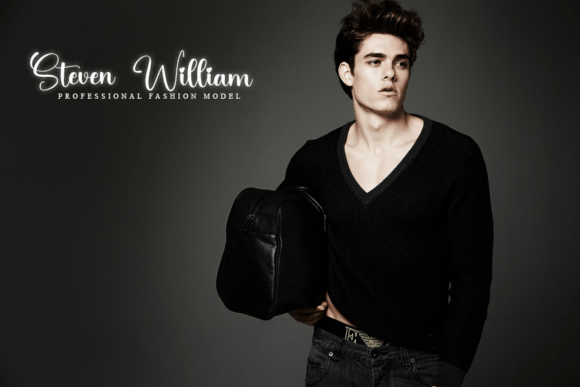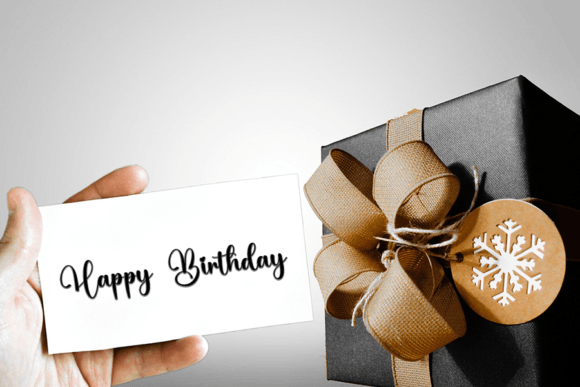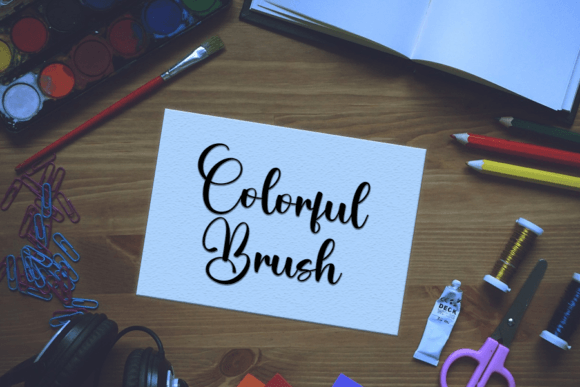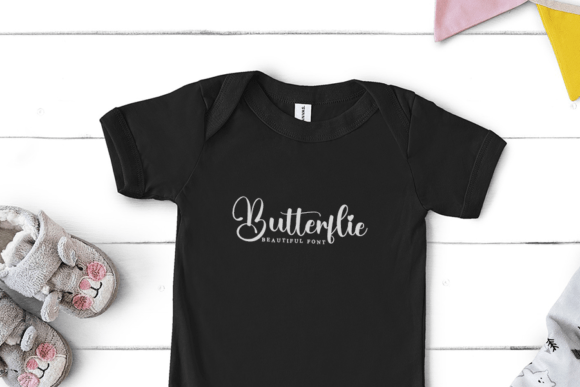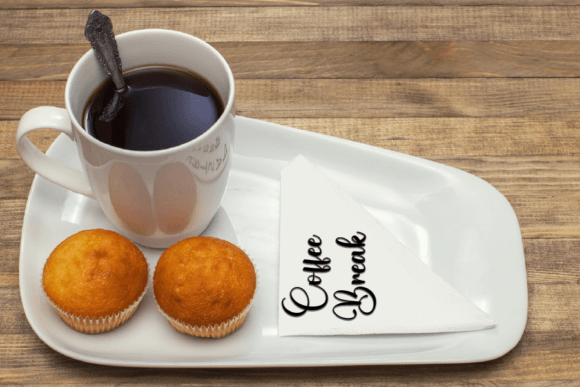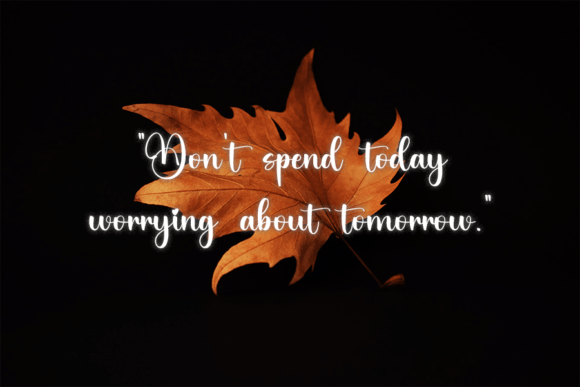
The Ultimate Guide to Drawing Book Font: Your New Go-To Script Font
I’ll never forget the time I was working on a craft project, pouring my heart and soul into a handmade greeting card. I had the perfect design in mind, but something was missing – the right font. I scoured the internet, tried out countless fonts, but none seemed quite right. That was until I stumbled upon Drawing Book font. ✨ It was love at first sight! In this article, I’ll share my experience with this gorgeous script font, its features, and how to make the most of it in your designs.
An Honest Review of Drawing Book Font
What I Love About Drawing Book Font
- 💃 Bold and Gorgeous: Drawing Book font is a stunning script font that’s perfect for making a statement in your designs.
- ✅ Versatile: Whether you’re working on crafts, digital design, presentations, or making greeting cards, this font fits right in.
- 🎨 Highly Customizable: With OpenType features, glyphs, and stylistic alternates, you can experiment with different looks and styles.
- 👍 Easy to Read: Despite its bold nature, Drawing Book font is surprisingly easy to read, even in smaller sizes.
While Drawing Book font is amazing, it’s not perfect. Here are a few things to keep in mind:
- 🤔 Kerning Issues: Like many script fonts, Drawing Book font can have kerning issues, especially with certain letter combinations. Be sure to adjust the kerning manually for optimal results.
- ⚠️ Limited Use in Small Sizes: While the font is generally easy to read, it may not be the best choice for very small text sizes (e.g., body text). It’s best used for headings or titles.
The Backstory of Drawing Book Font
While the origins of Drawing Book font are shrouded in mystery, it’s clear that the designer was inspired by the world of art and literature. The font’s bold, expressive lines evoke the feeling of a beautifully illustrated book. Whether or not the designer was an avid reader or artist, their love for creative expression shines through in this gorgeous script font.
Q: What is the best way to use Drawing Book font?
A: Drawing Book font is perfect for designs that need a bold, statement-making font. Use it for headings, titles, or anywhere you want to add personality to your text.
Q: Is Drawing Book font easy to read?
A: Despite its bold nature, Drawing Book font is surprisingly easy to read, even in smaller sizes. However, it’s best used for headings or titles rather than body text.